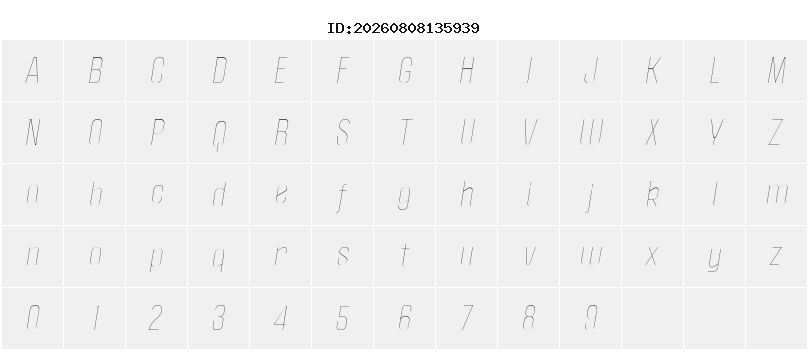
Politica Preview
• Font Name: Politica
• Font Style: Thin Italic
• Designer: Alejandro Paul & Alfredo Graziani
• Manufacturer: Alejandro Paul
About Politica.ttf
Politica.ttf is a modern, elegant sans-serif font designed for ultimate readability and visual harmony. Perfect for branding, headlines, web design, and print materials.